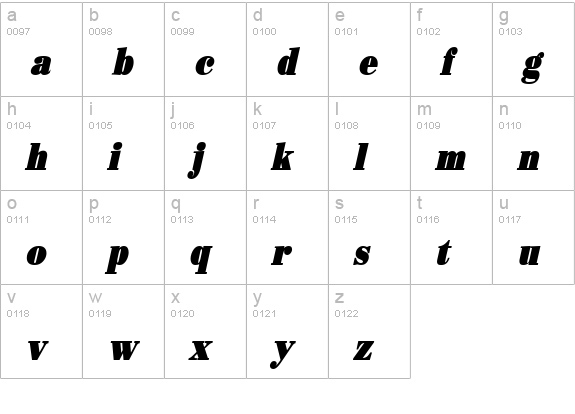
Beau Condensed BoldItalic is a distinctive, condensed-width variant in the Beau typeface family \xE2\x80\x94 well suited to design and typography projects.
Beau Condensed BoldItalic font is a stylish and modern typeface that exudes confidence and elegance. Its bold and italic design adds a touch of sophistication to any project, making it perfect for headlines, titles, and branding materials. The condensed style of this font allows for more text to fit in a limited space without compromising readability. What sets Beau Condensed BoldItalic font apart is that it is not only visually appealing but also completely free to download. You can easily access this versatile font at FontsMarket.com, where you can enhance your designs with this premium quality typeface without any cost. Don't miss out on the opportunity to elevate your projects with the stunning Beau Condensed BoldItalic font today!